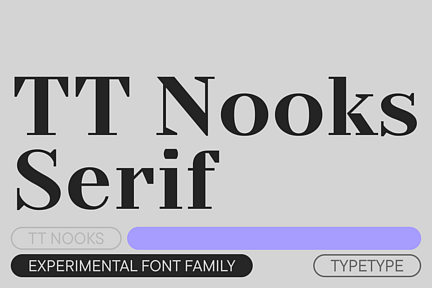
TT Nooks Bold
TT Nooks is an experimental font family that includes a high contrast serif, TT Nooks, and an upright italic, TT Nooks Script. Despite the difference in style, both subfamilies get along well, which is partially thanks to their similar proportions. The main subfamily is TT Nooks—a stylish high-contrast serif with a light touch of self-centeredness. The serifs in TT Nooks stand out especially visibly thanks to their geometric shape that resembles slippers.